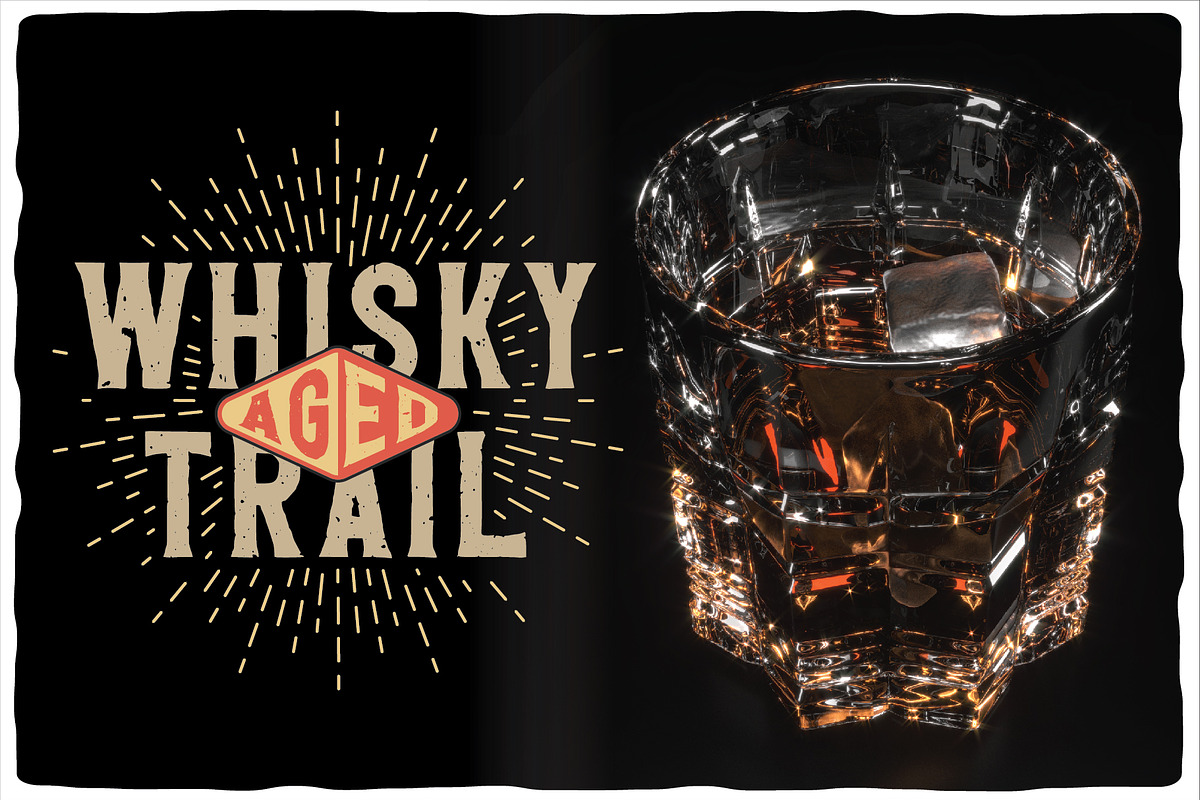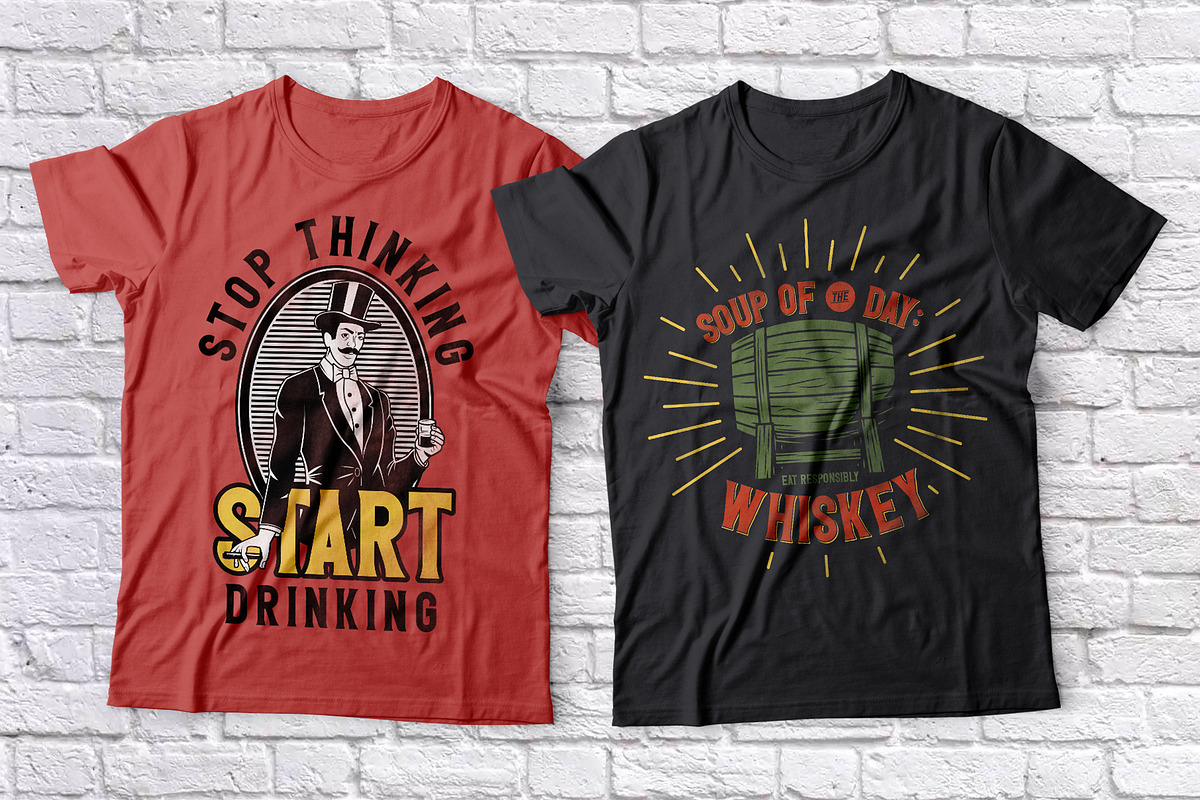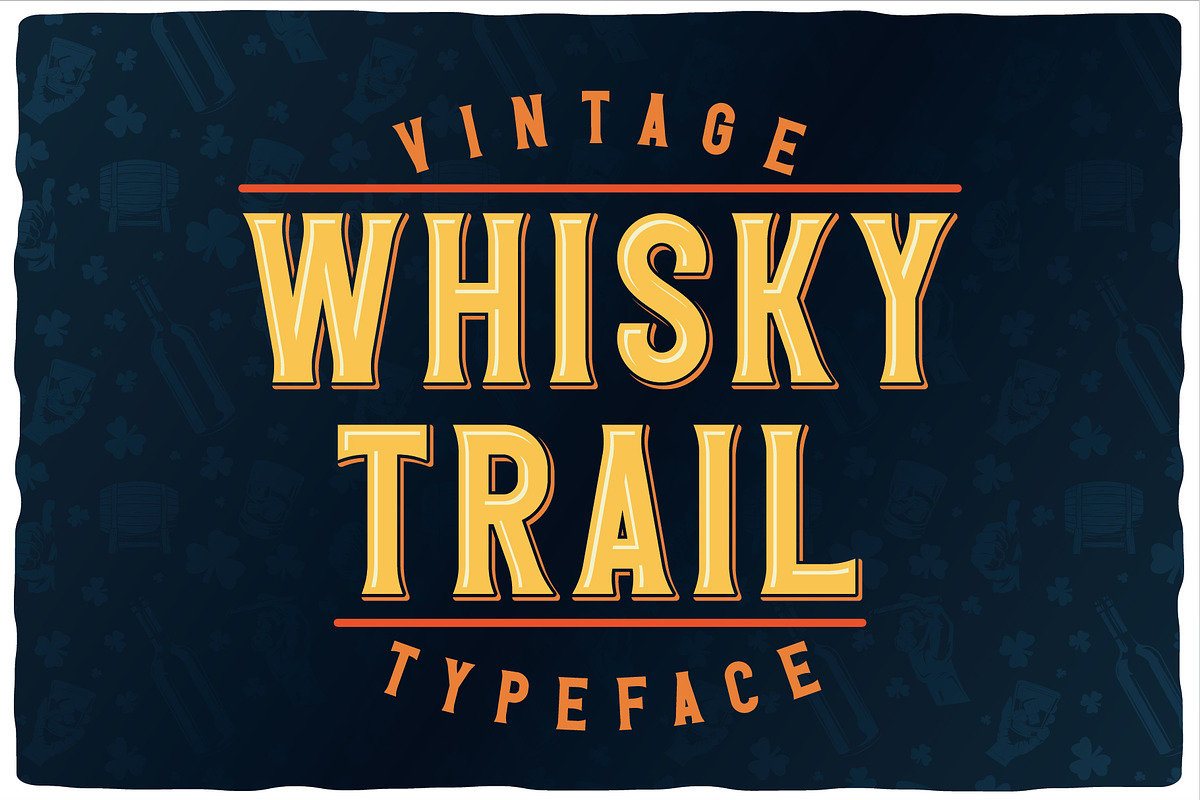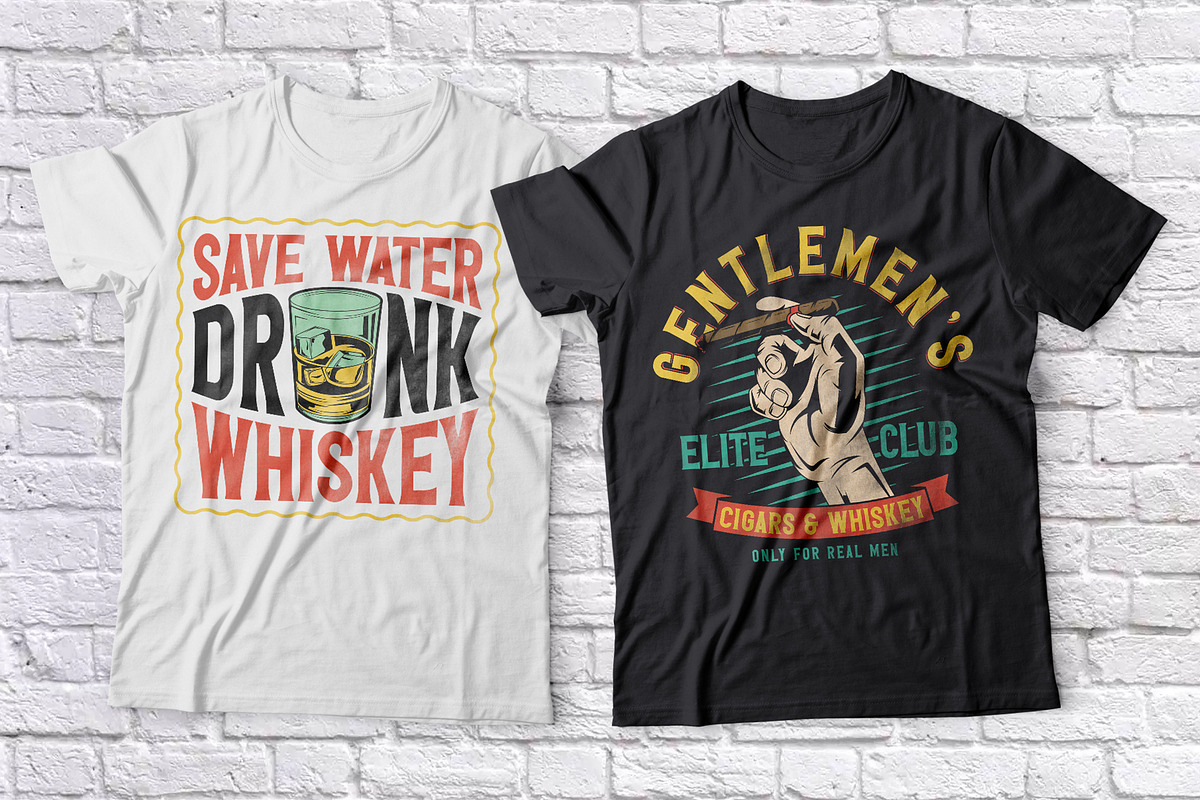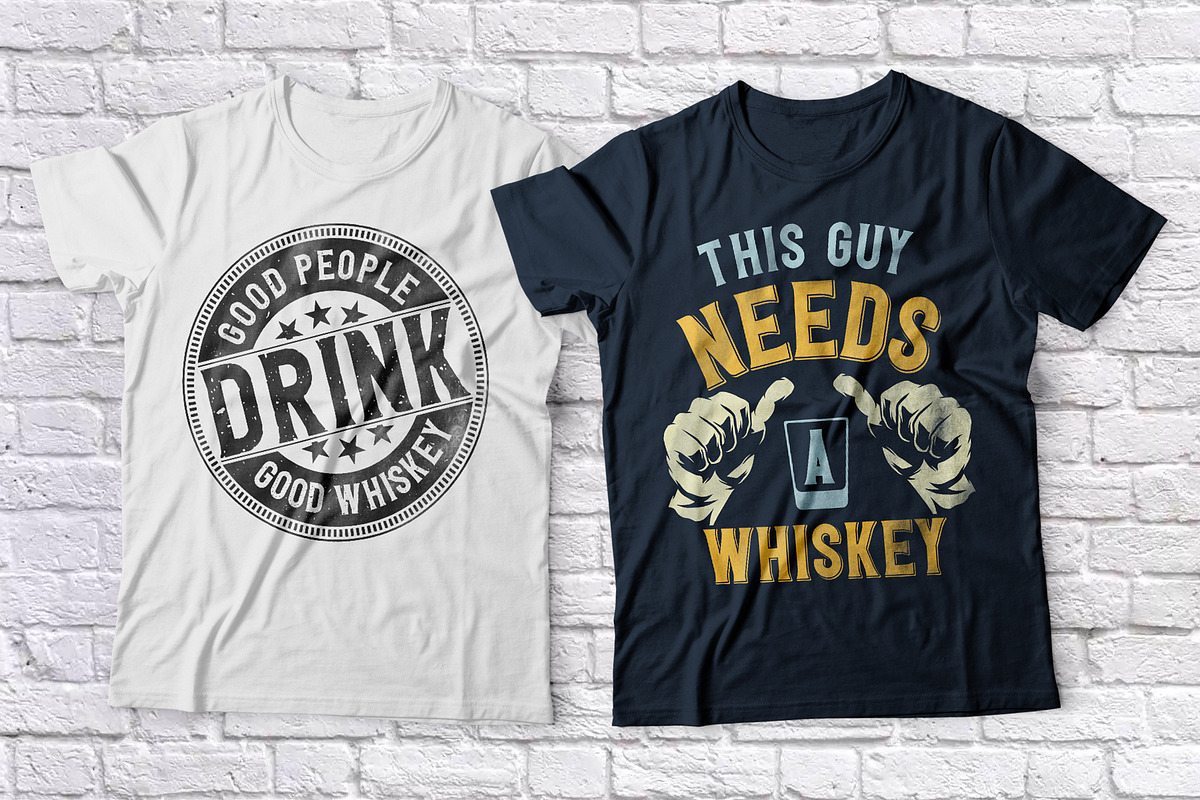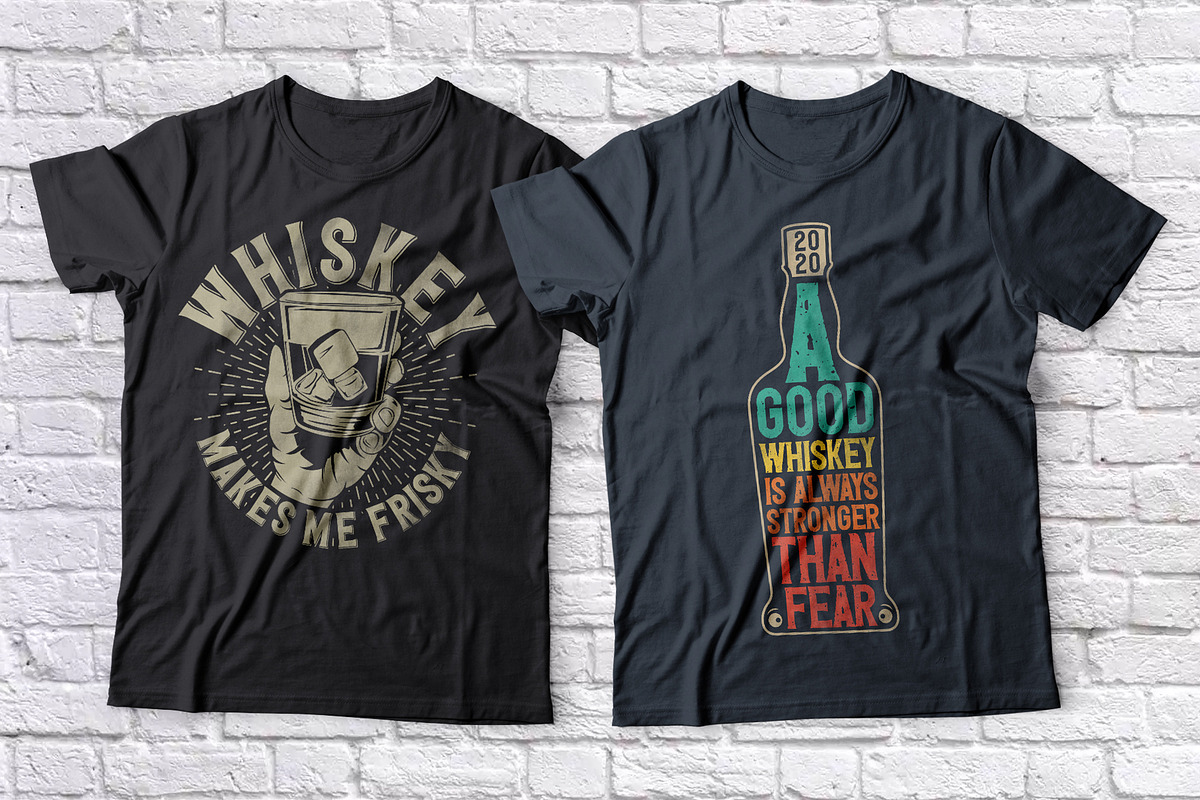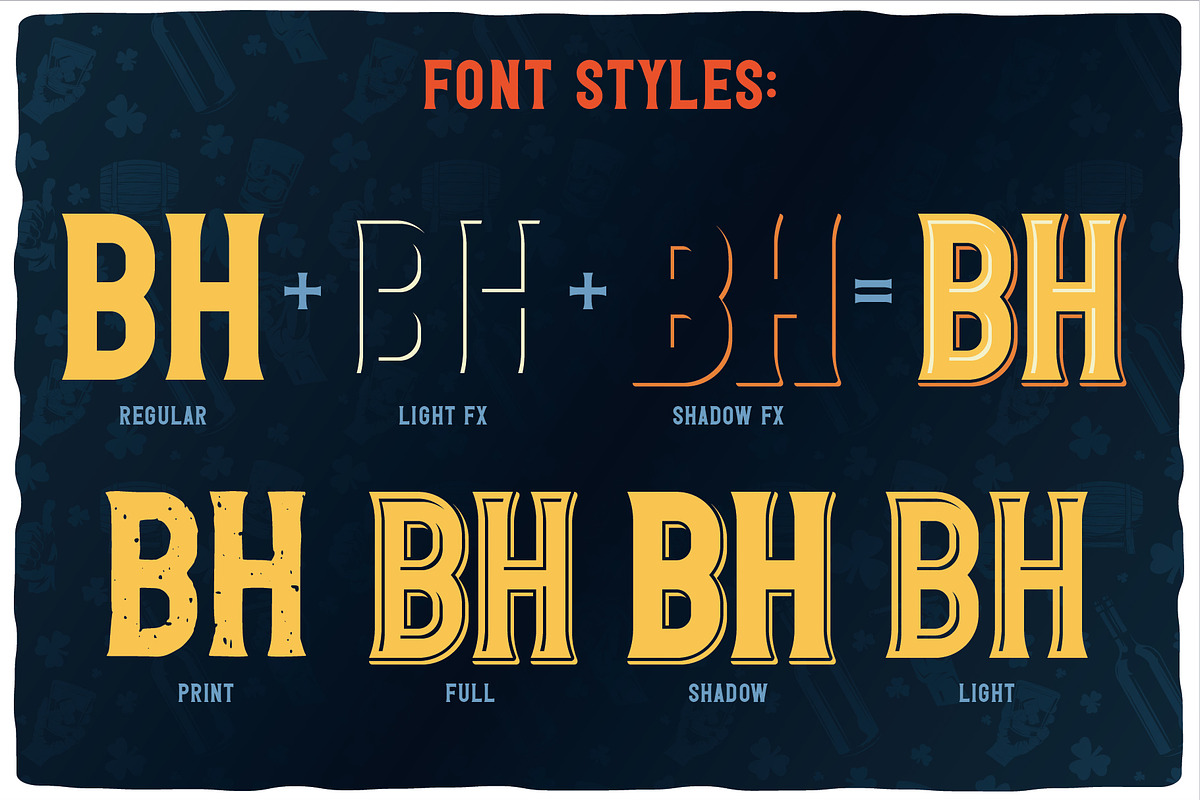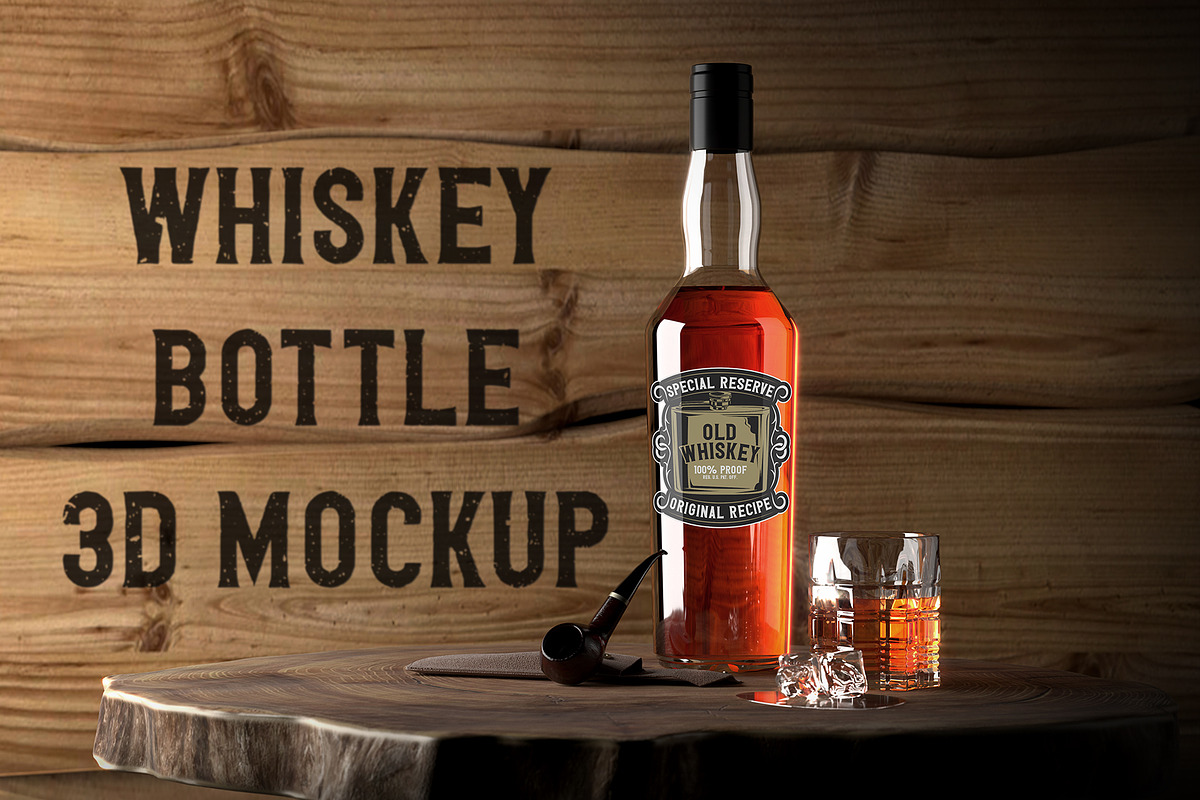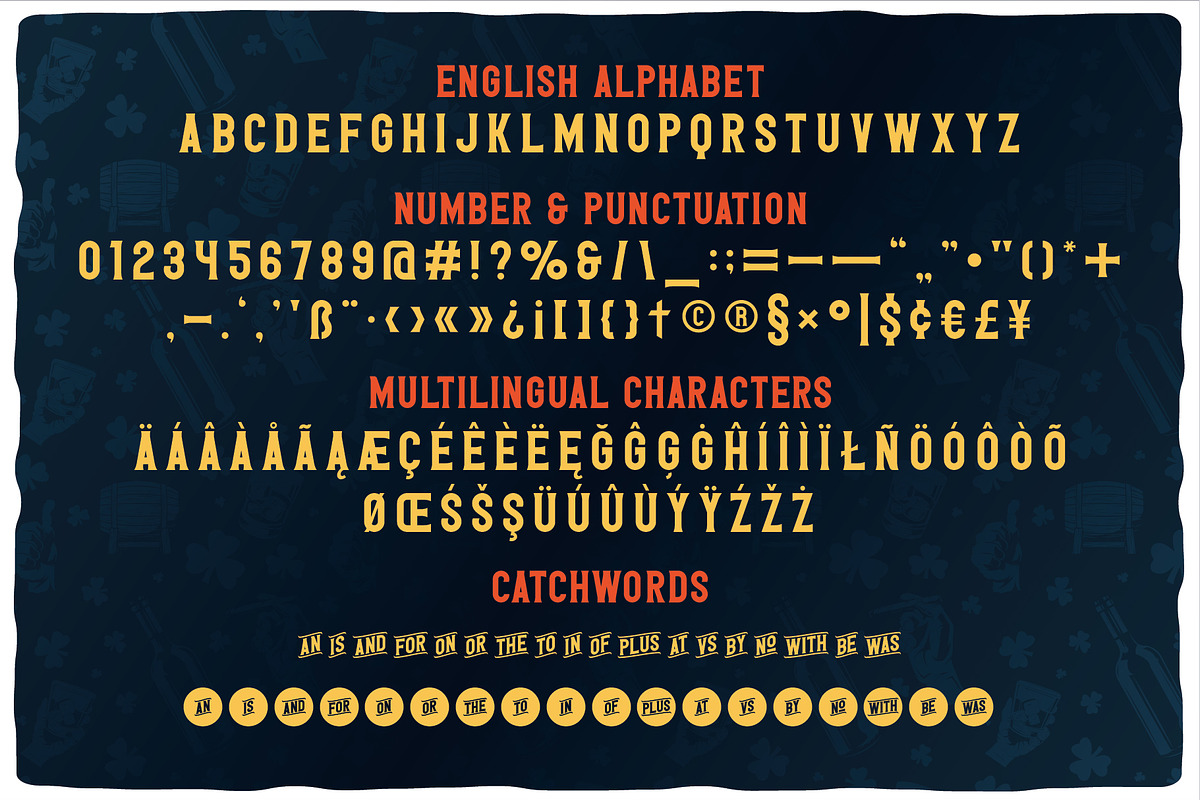
Whisky Trail Font + bonus!
Introducing a vintage look label font named "Whisky Trail". All available characters you can see at the screenshot. This font have 7 styles - Regular, Full, Shadow, Light, Shadow FX, Light FX and Print. This font will good viewed on any retro design like poster, t-shirt, label, logo etc.
- A lot of additional characters and multilingual support